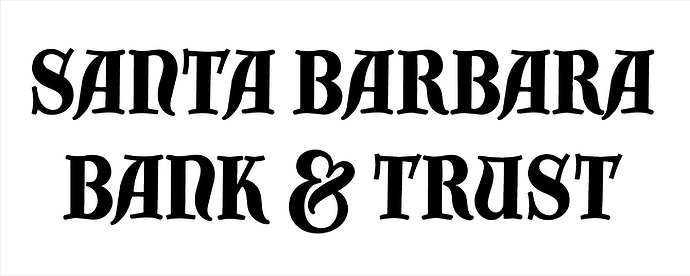
I’ve searched for this font and run it through font identifiers to no avail. If anyone can help me identify it, it would be greatly appreciated.
This is some variation on Lombardic Capitals, but I haven’t found out which.